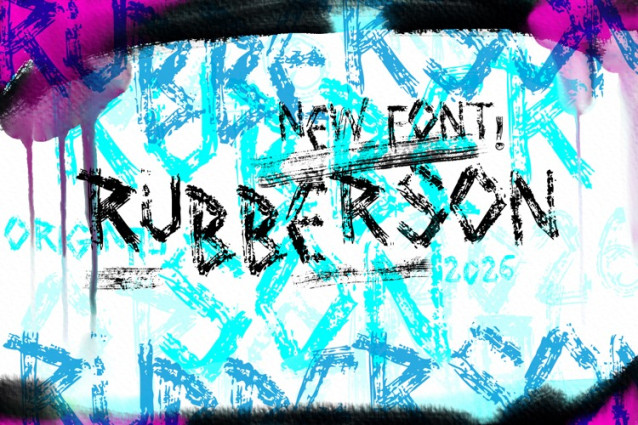
Rubberson Font
Rubberson Font is a bold and expressive handwritten display font inspired by urban graffiti culture and distressed street art aesthetics. Featuring rough, uneven letterforms with torn edges, dry-brush textures, and spray-paint effects, the typeface delivers a raw, rebellious, and energetic personality. Its handcrafted appearance creates a strong visual impact while maintaining readability, making it ideal for logos, posters, album covers, apparel graphics, packaging, and branding projects that seek a daring, unconventional, and street-inspired identity. The font’s rugged texture and artistic imperfections evoke the authentic feel of graffiti tags and weathered ink prints, adding character and attitude to any design.